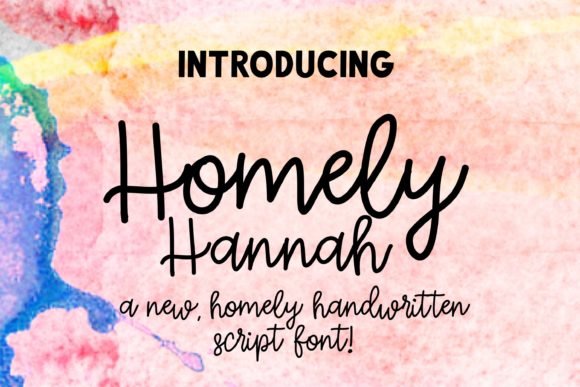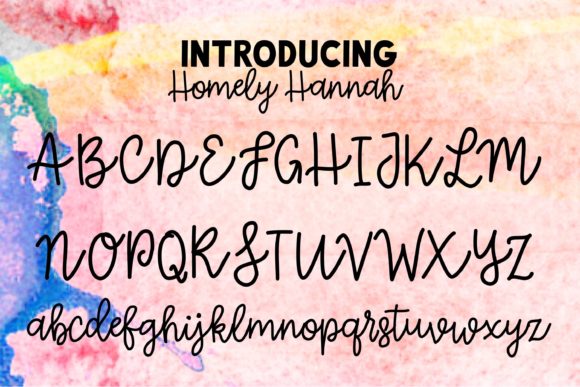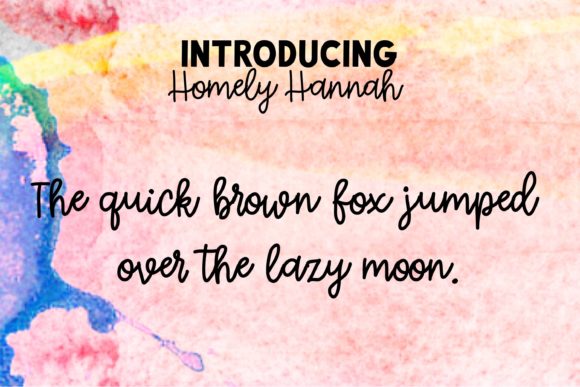
Discover the Warmth of Homely Hannah Font
There’s something magical about scribbling down ideas in a notebook, the sound of pen scratching against paper, and the feeling of bringing a concept to life. For designers, this moment is all about capturing the essence of a project and letting creativity flow. And what better way to do that than with a font that embodies warmth and coziness?
Enter Homely Hannah Font, a beautiful script that invites you to relax and let your imagination run wild. This homely font is designed to add a touch of organic charm to your designs, making it perfect for projects that require a personal, human touch. Whether you’re working on a branding project, a blog, or a social media campaign, Homely Hannah Font is sure to inspire.
As a designer, you know the value of a well-chosen font in elevating your work. With Homely Hannah Font, you’ll be able to tap into a world of creative possibilities and bring your ideas to life in a way that feels authentic and engaging.
Key Features of Homely Hannah Font
- Font Size: The font size is approximately 12 points, making it suitable for body text and paragraph settings.
- Resolution: The font is designed to work well at resolutions up to 300 DPI (dots per inch), ensuring crisp and clear text output.
- Unique Characteristics: Homely Hannah Font features a warm, inviting, and traditional design, making it ideal for creating a cozy and homely atmosphere in digital and print materials.
- Font Family: The font family consists of multiple weights, from Light to Bold, allowing for flexibility in typography and design.
- Language Support: Homely Hannah Font supports a wide range of languages, including Latin, Cyrillic, and Greek scripts, making it suitable for international use.
Designer Review: Homely Hannah Font
Overall, I think Homely Hannah Font is a cute and charming script font, perfect for those who want to add a touch of warmth and personality to their designs. ✨
Here are some of its strengths:
- Unique and quirky aesthetic that’s sure to stand out
- Perfect for projects that need a homespun, handmade feel
- Works well in titles, headings, and short blocks of text
- Has a fun, playful vibe that’s great for children’s books, craft projects, and more
- Not suitable for long blocks of text, as it can be hard to read and may require line spacing adjustments
- May not be the best choice for formal or professional designs, as it’s a bit too casual
- Some characters may not be as legible as others, so be sure to test them carefully
- ⚠️ Limited language support, which may be a concern for designers working on international projects
Overall, I think Homely Hannah Font is a great choice for designers who want to add a bit of whimsy and personality to their work. Just be mindful of its limitations and use it judiciously.
Tips for Getting the Most Out of Homely Hannah Font
Use Homely Hannah Font for rustic, country-inspired designs.
Pair it with distressed textures and earthy colors for a unique look.
Use it in conjunction with other vintage-inspired fonts for a cohesive design.
Rustic-themed party decorations
Vintage-inspired blog or website designs
Country-inspired product packaging and branding
Alternatives to Homely Hannah Font
Cream Soda Font is a charming, vintage-inspired font perfect for designs that need a nostalgic touch. It’s ideal for projects that require a whimsical, old-timey feel. When to use: Retro-themed designs, antique-inspired projects, and vintage-style branding.
Compared to Homely Hannah Font, Cream Soda Font has a more pronounced vintage feel and a softer, creamier texture. While Homely Hannah Font has a more subtle, homespun quality, Cream Soda Font is bolder and more attention-grabbing.